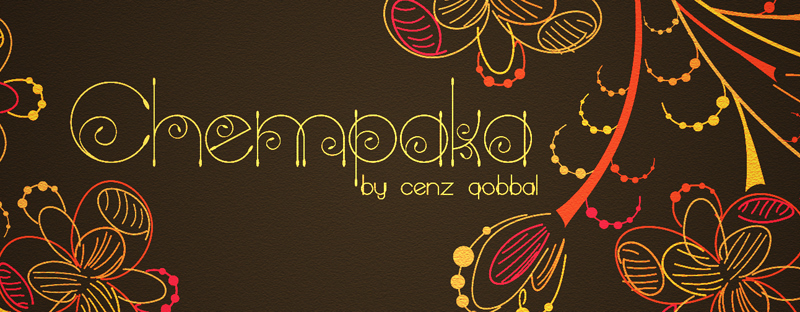
Chempaka Ranting Simpul by Cenz Qobbal is a free outlined display font with extremely tall proportions and a sleek geometric build. Its fine double-line strokes trace broad curves, sharp joins, and occasional breaks that make the rounded letters look almost diagrammatic.
Packaging gives this lettering a distinctive role on fragrance labels and fashion products, where its airy contours suggest precision rather than weight. It also suits music posters and editorial covers built around experimental typography. The open circles and crossing lines can echo wireframe illustrations, technical patterns, or abstract line art.